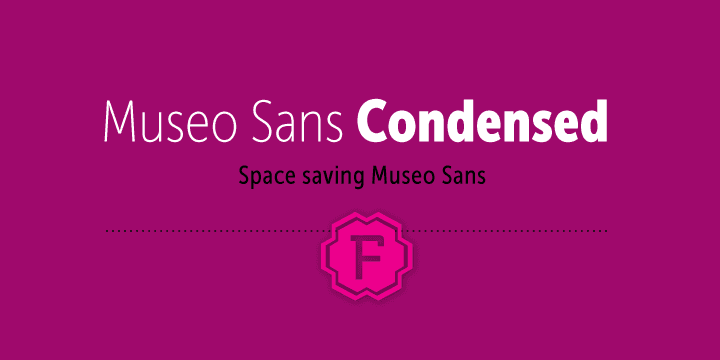
Museo Sans Condensed is a sans serif font family. This typeface has ten styles and was published by exljbris Font Foundry.
Museo Sans Condensed is a sturdy, low contrast, geometric, highly legible sans serif sister typeface of the wildly popular Museo Sans Family. It is well suited for heads and subheads on your website.